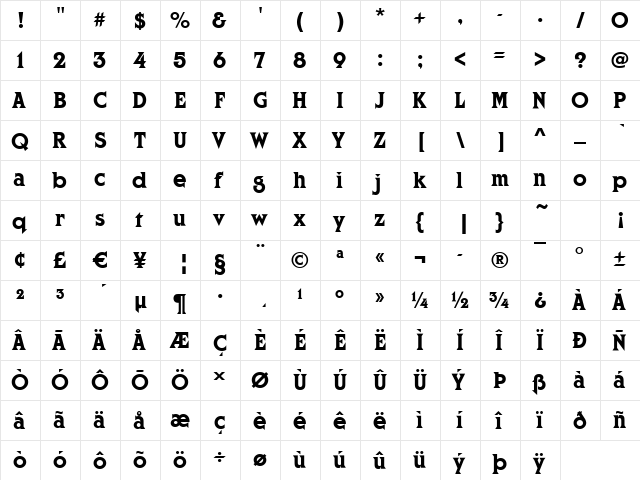
Curzon Regular
Design Context for Curzon Typeface
Curzon offers clean, dependable letterforms without strong stylistic allegiance, making it a practical choice for designers who need flexibility.
Pro Tip: Pair Curzon with a font of contrasting weight or personality to build a more expressive typographic hierarchy.